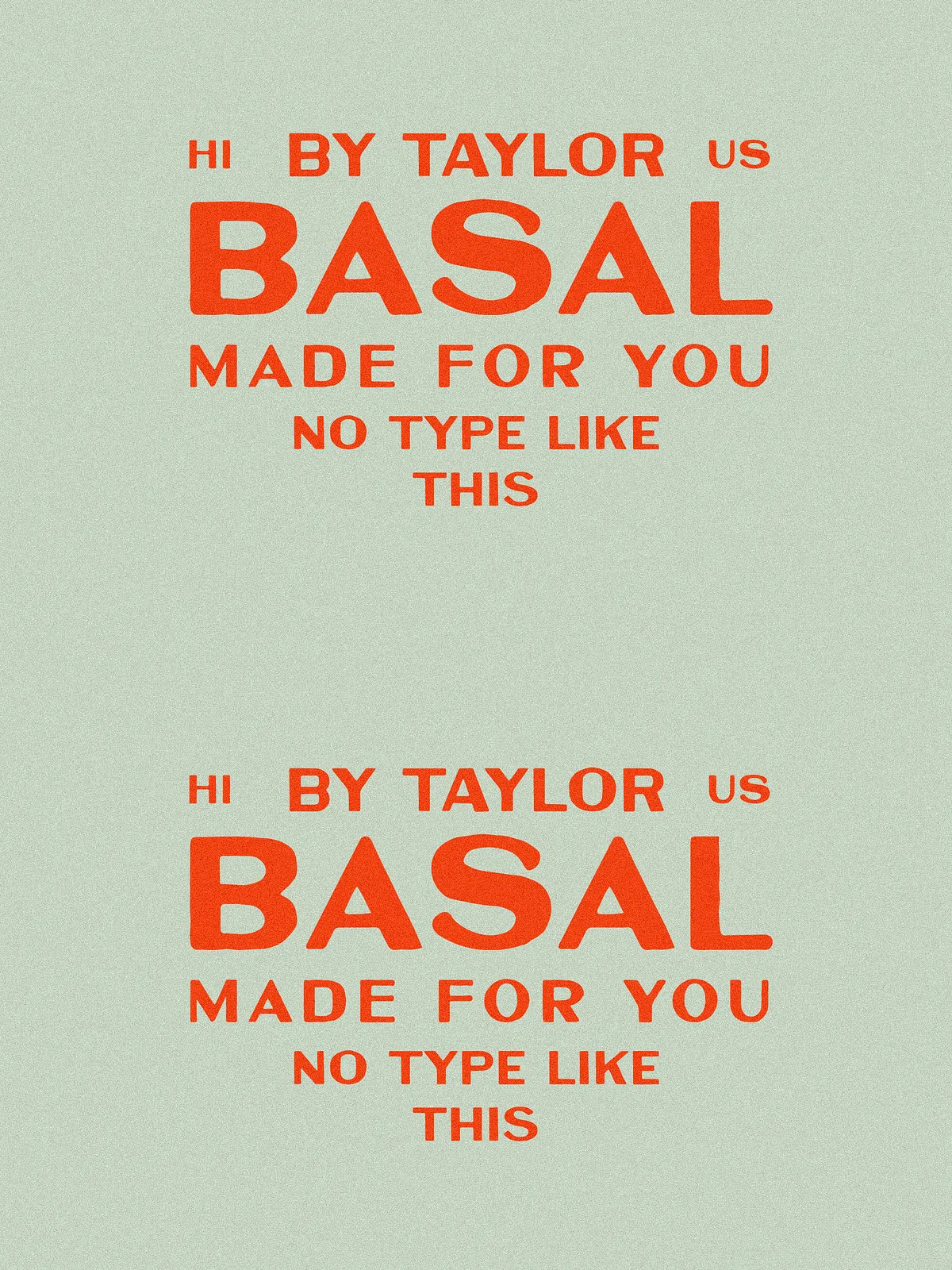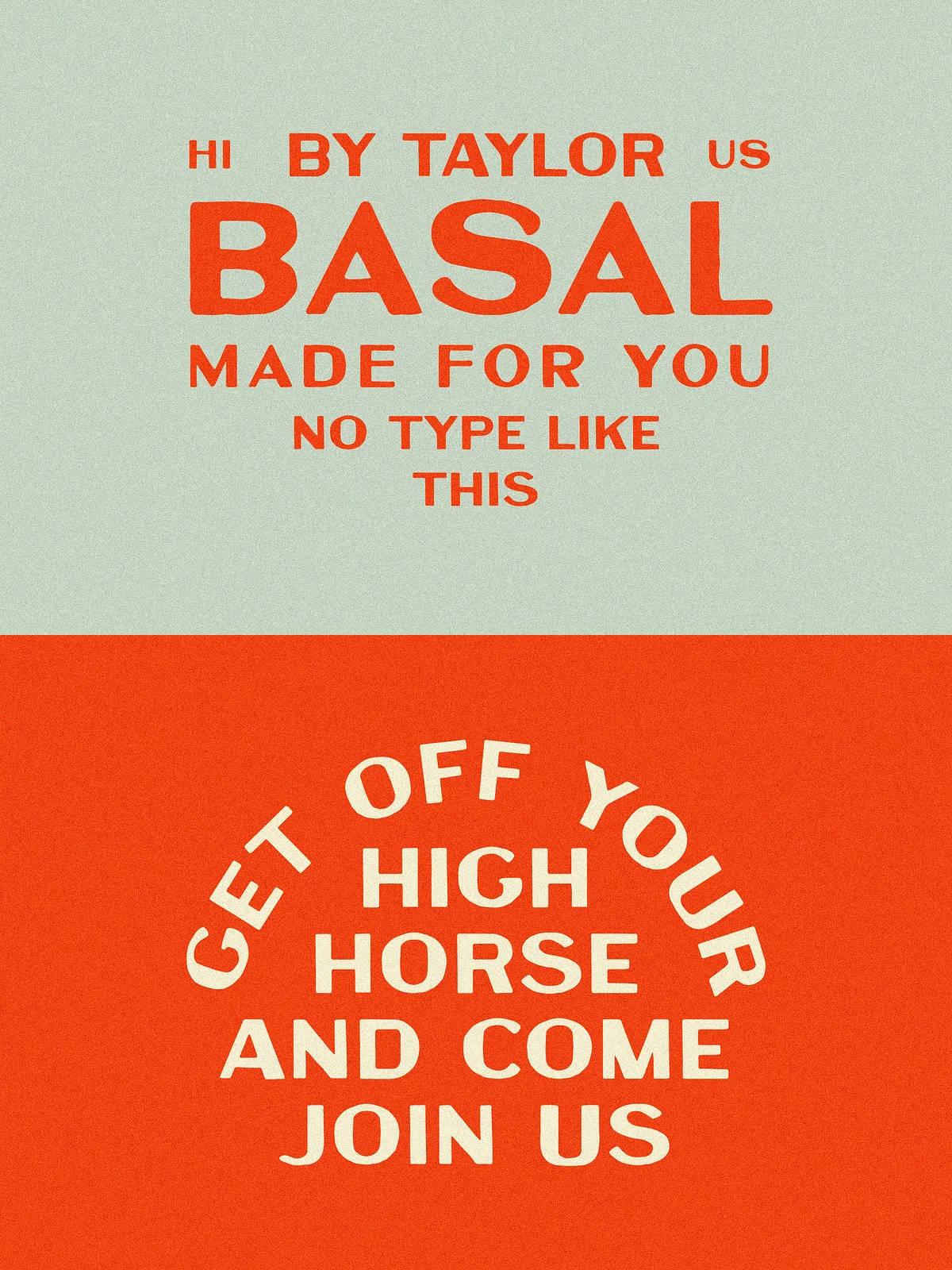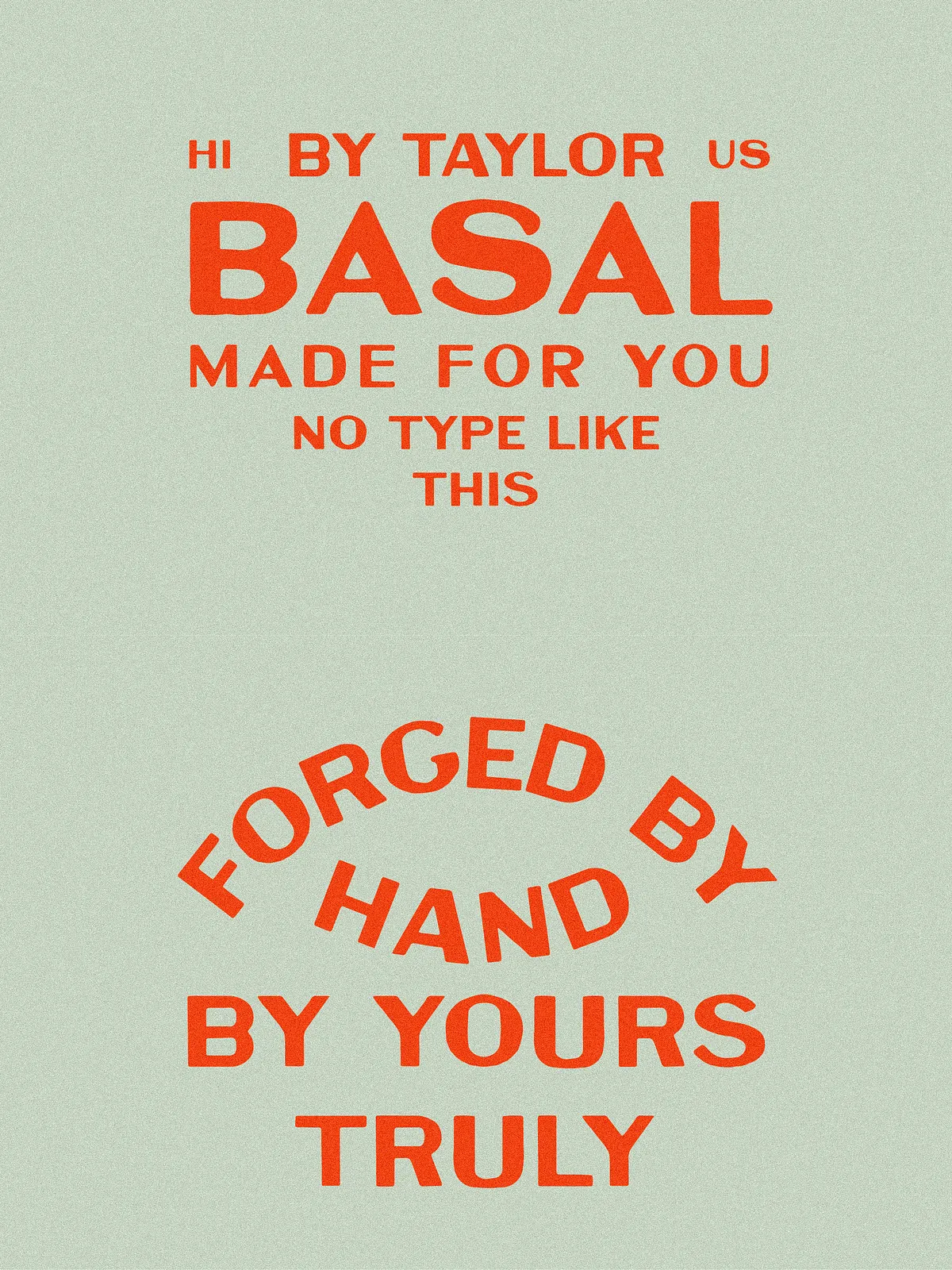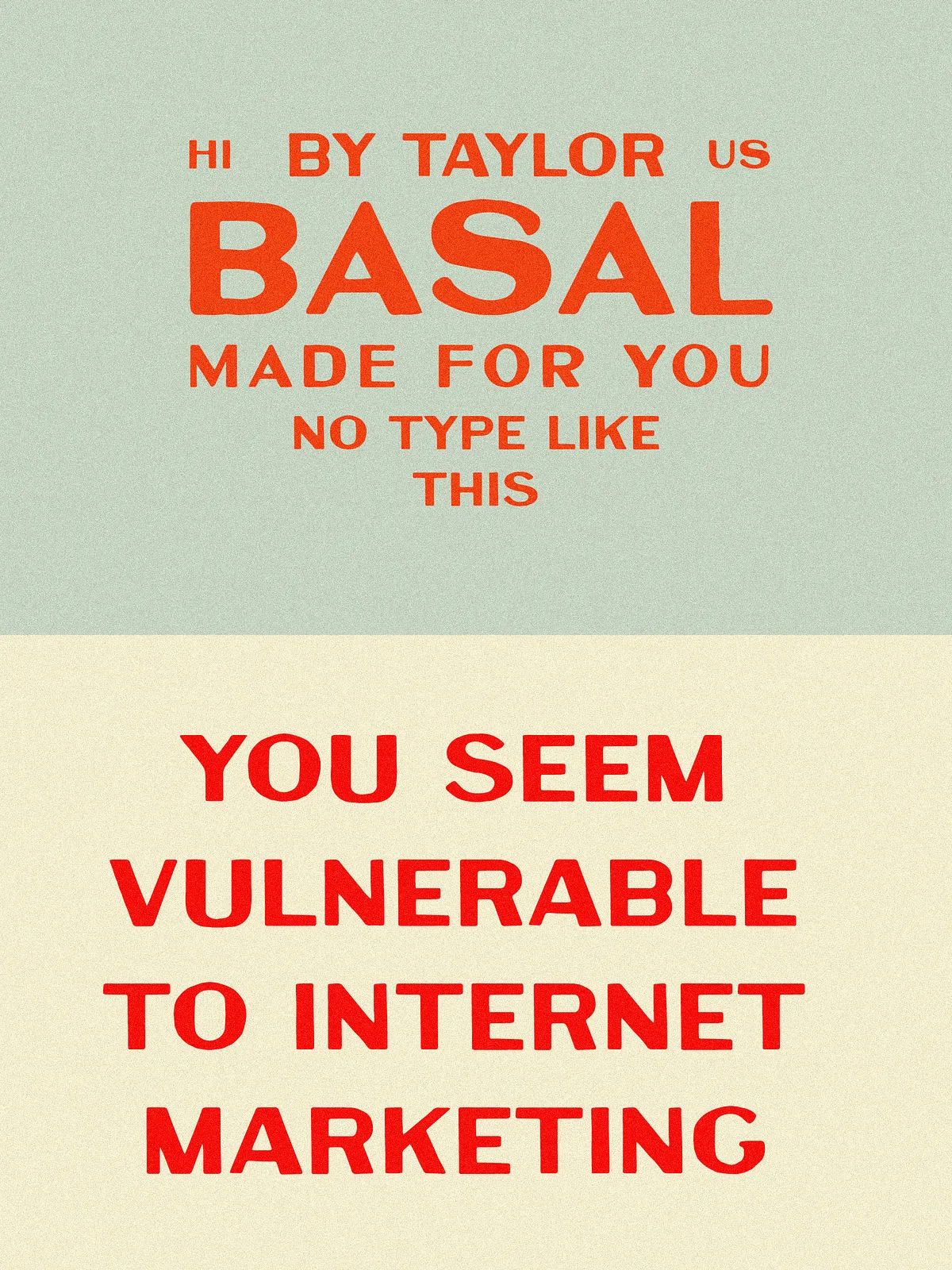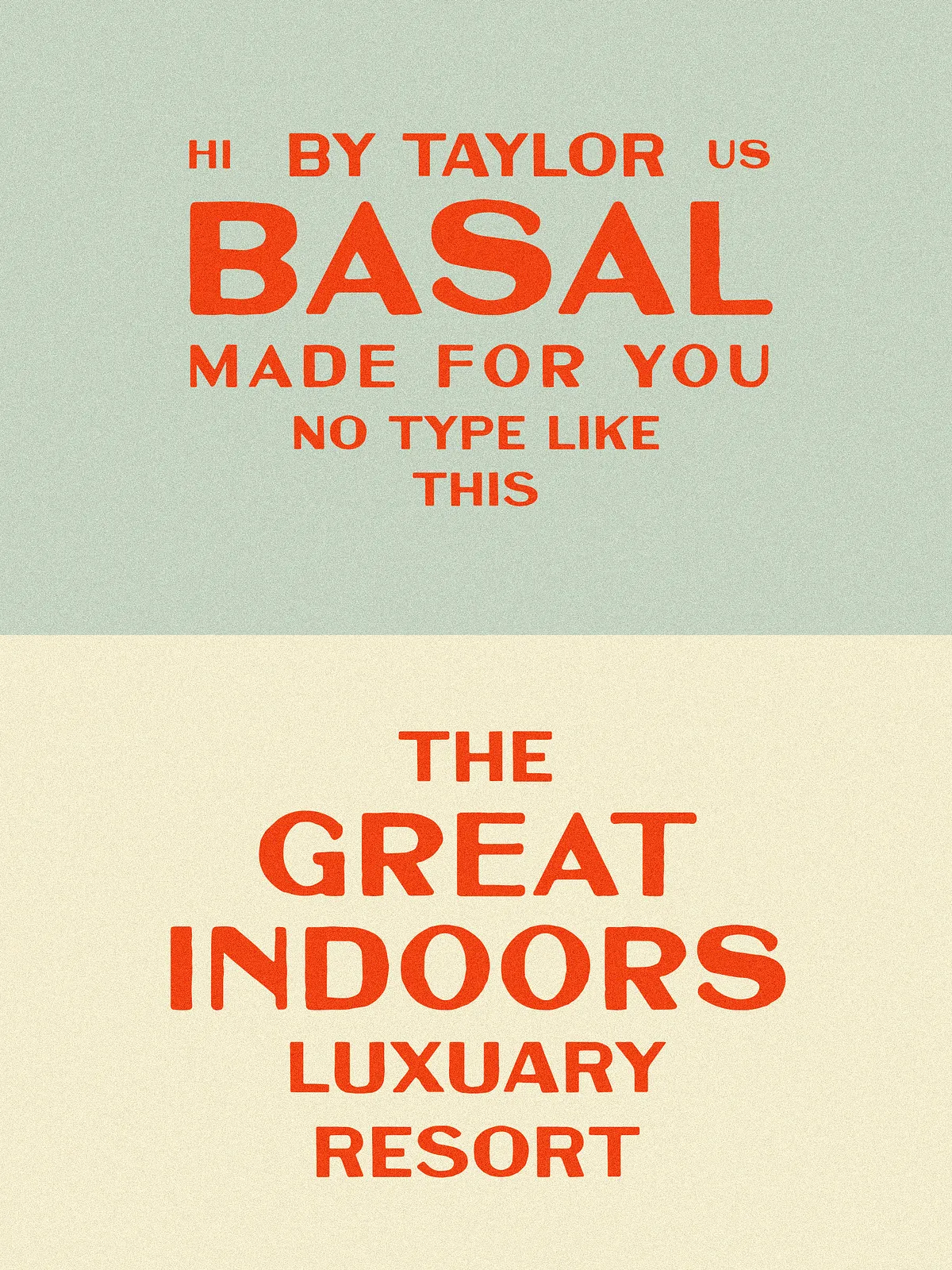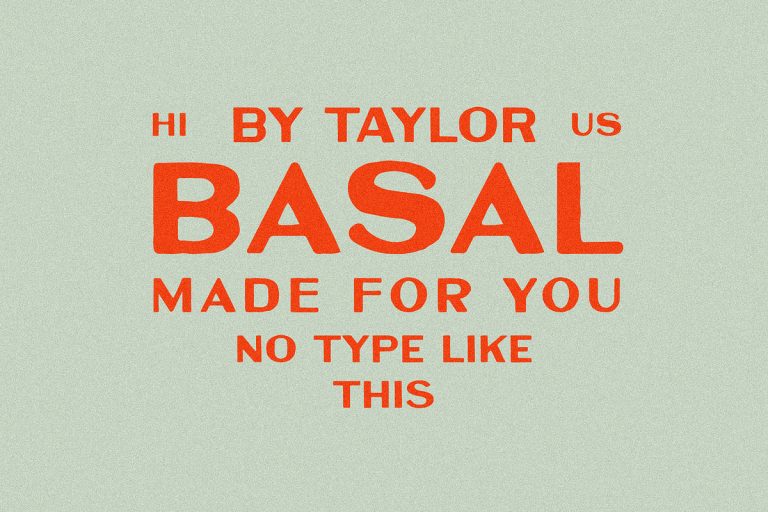
Basal I A Bold Sans Serif Font
Spanish for “base layer” or “fundamental”, this thing was riffed off an old bottle from 1910 and sprinkled with the current times.
Contains all uppercase, numbers and basic punctuation.